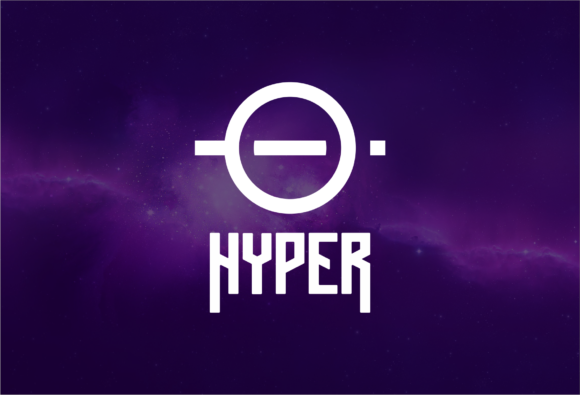
Marijan Font
Marijan Font is built for weight, not nuance. The strokes are thick, the shapes sit close together, and the letterforms behave like display type first and text type never. That is the whole pitch: when a headline has to land hard, a face with this much ink does work that extra copy cannot.
It fits posters, team and gym apparel, event titles, packaging headers, and any layout where the word itself is the graphic. It fails in body copy, small screen text, long paragraphs, quiet corporate documents, and anywhere you need a light weight instead of a slab of ink. Use it once per layout and let everything around it stay neutral.
Before you install anything, set a real headline in it at final size, not specimen size. Type your longest word with a number and a question mark, then check whether the thick strokes stay open where you will print them. A face that reads well at two hundred points can turn to mud on a business card.